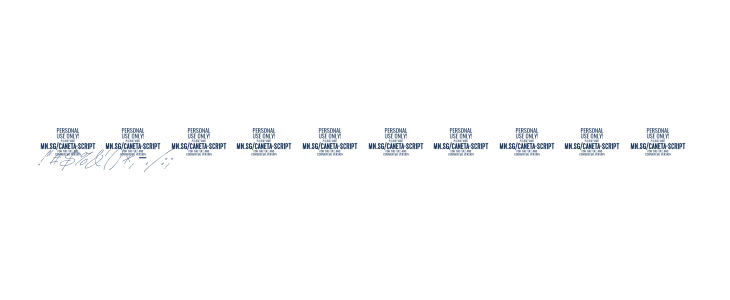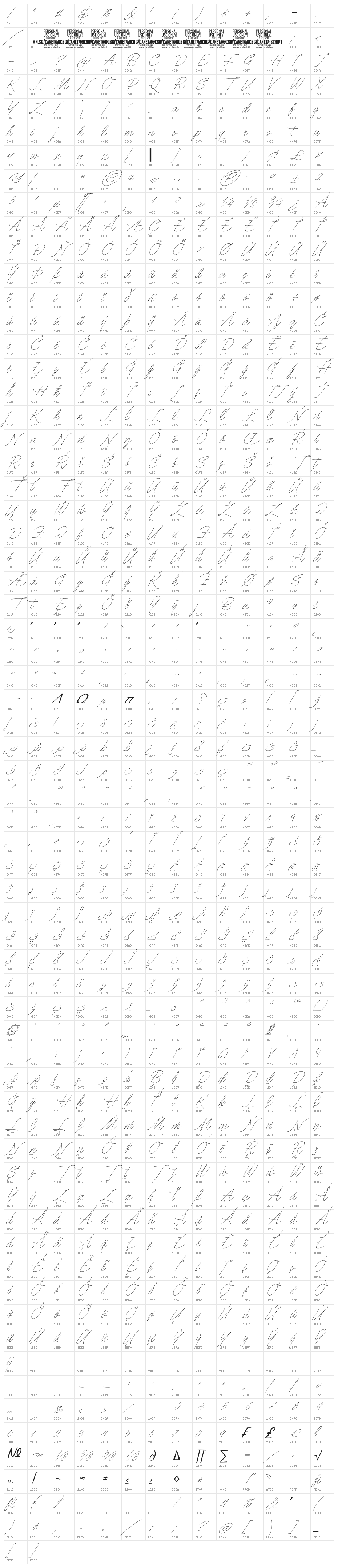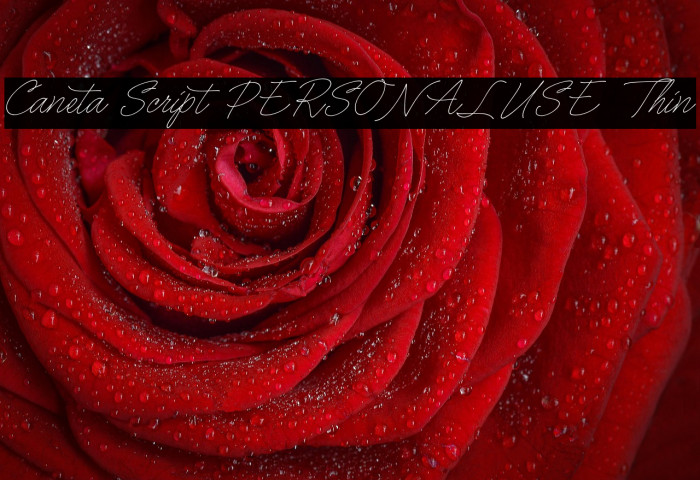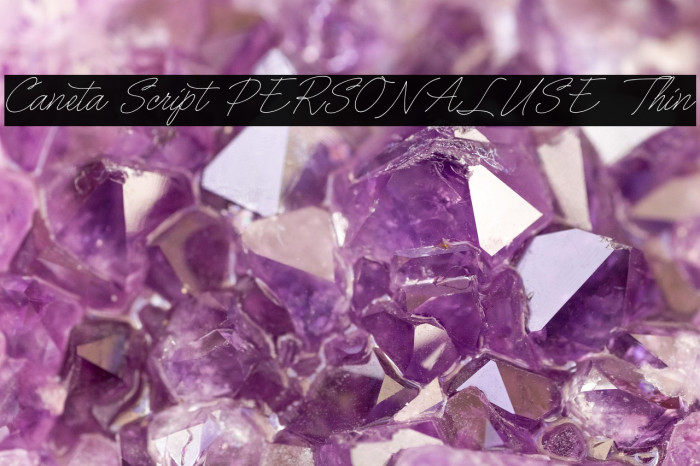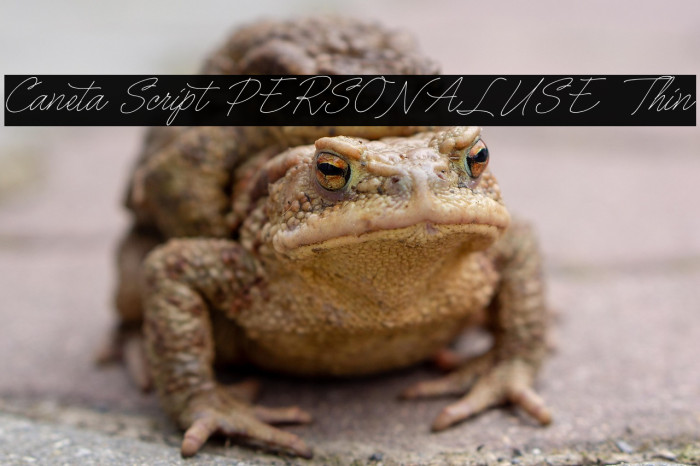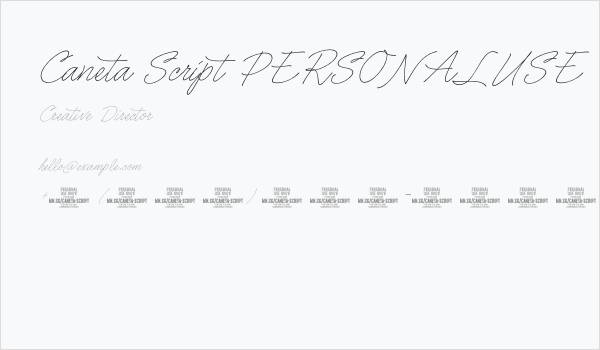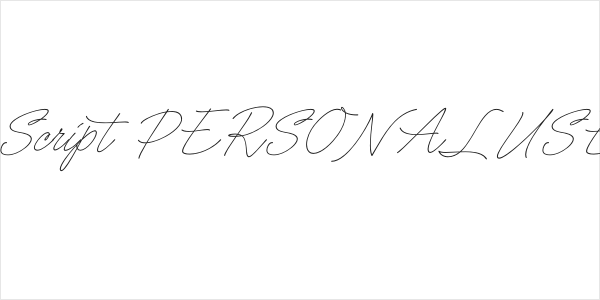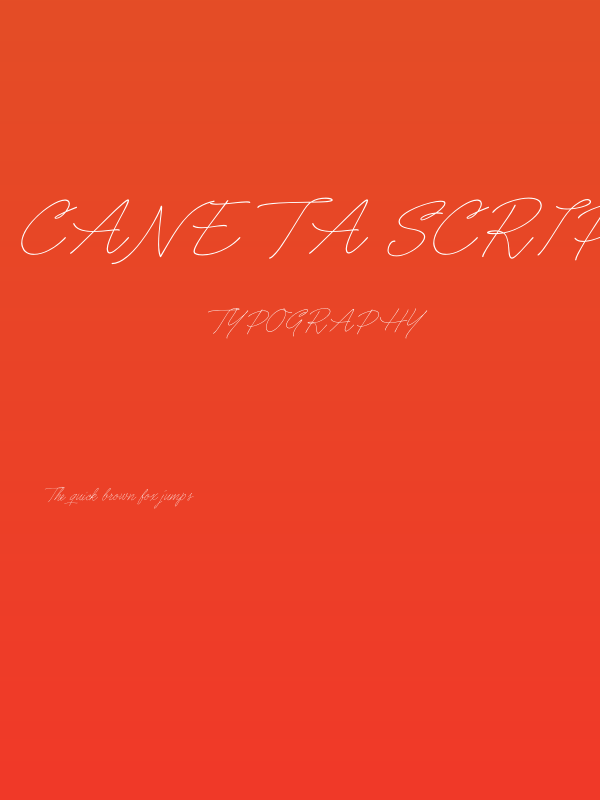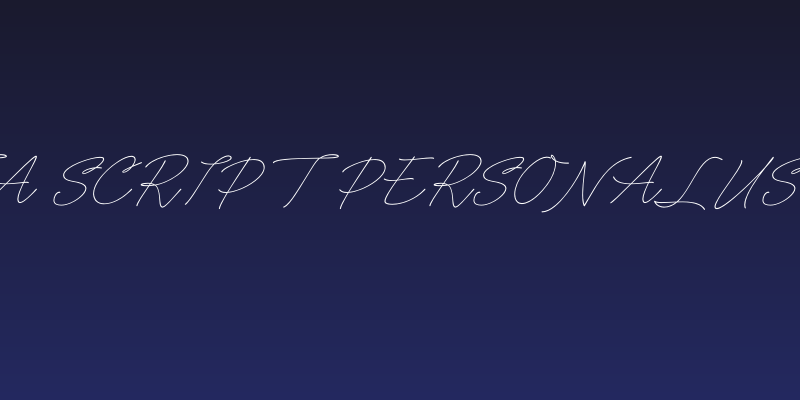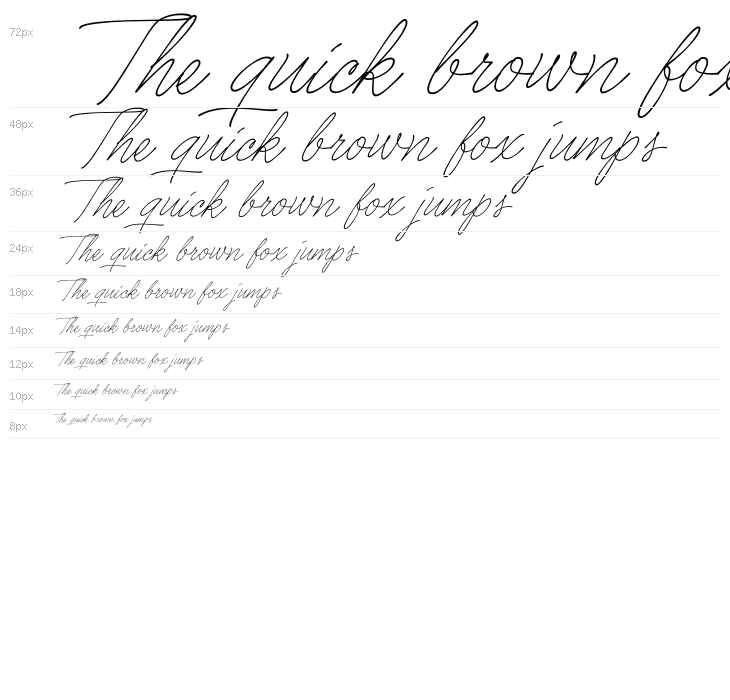
Caneta Script PERSONAL USE Thin Font
Caneta Script PERSONAL USE Thin Description
This elegant script font features a thin, flowing design that mimics the fluidity of handwriting. The uppercase letters are graceful and elongated, with delicate curves and loops that add a touch of sophistication. The lowercase letters maintain a consistent style, offering a seamless connection between characters that enhances readability while preserving the script's artistic flair. The numerals and special characters are designed with the same attention to detail, ensuring a cohesive look across all text elements. This font's thin strokes and gentle curves make it ideal for projects that require a touch of elegance and refinement.